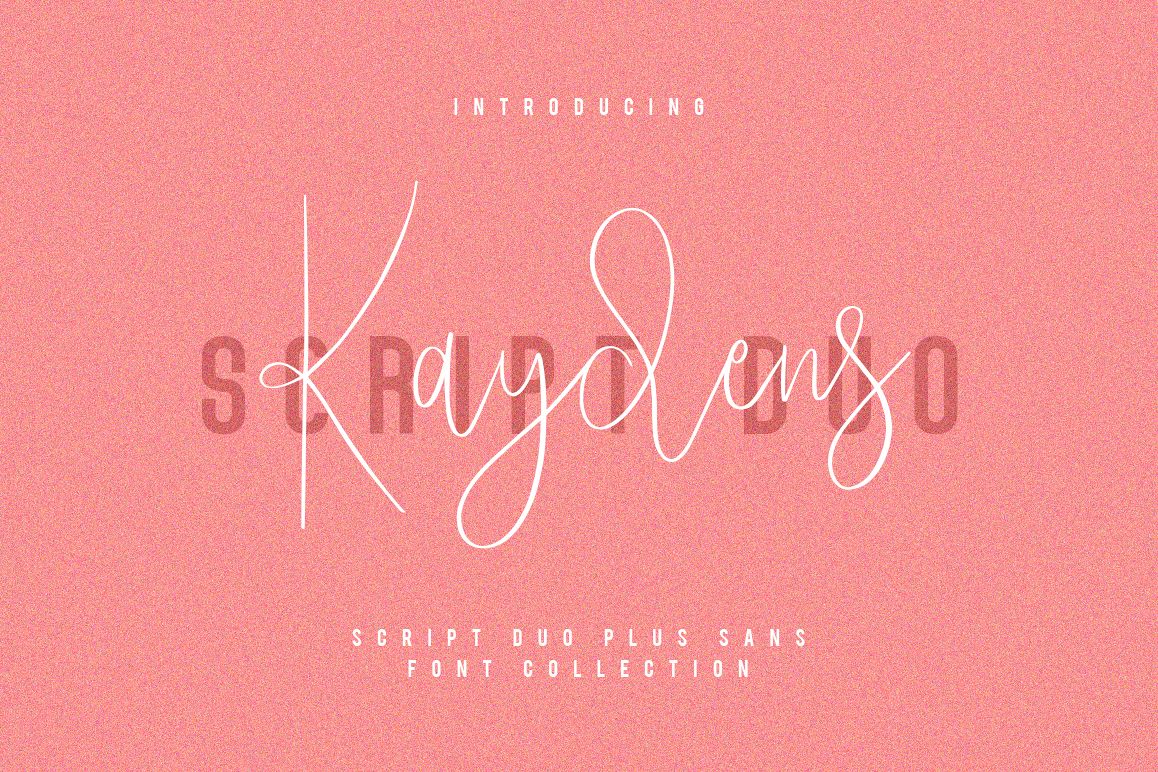
Give your designs an authentic handcrafted feel. Kaydens Script Font Collection is perfectly suited to signature, stationery, logo, typography quotes, magazine or book cover, website header, clothing, branding, packaging design and more.This files include Script + Ligatures FontThis files include Sans Regular FontGet the 200+ total glyphs in this fileWhat includes: